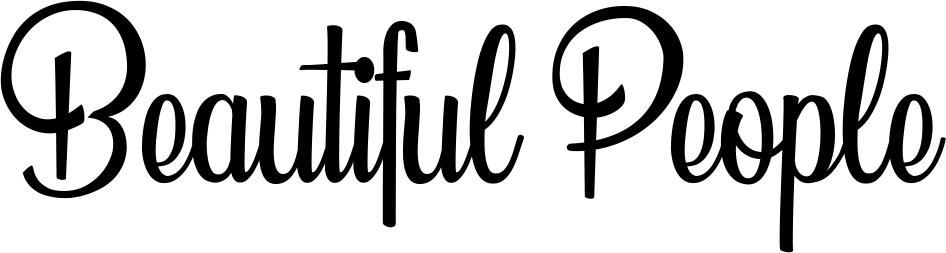
Beautiful People Font
Beautiful People is a script font with a curly and continuous style. This font gives a classy, vintage, and kinda uplifting feeling to the reader. You can use it for shop signs, tattoo designs, retro movie posters, product names, and promotions. This typeface has two fonts that only have alphabetical characters.